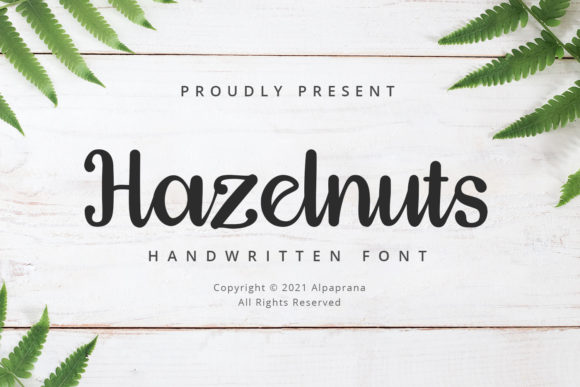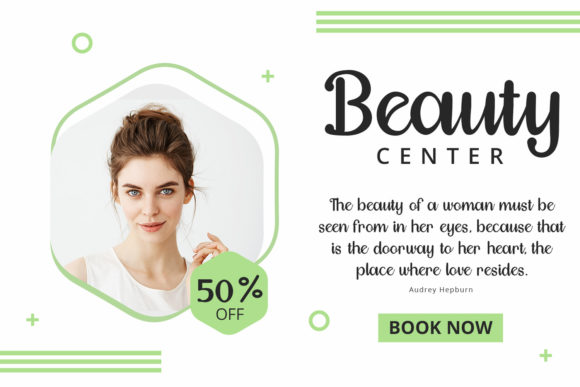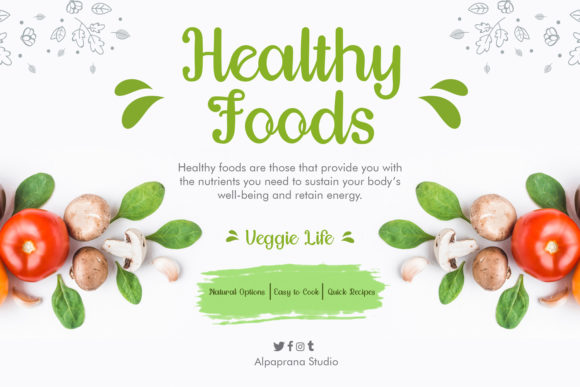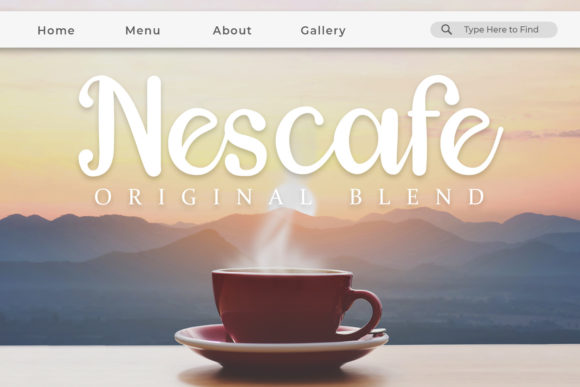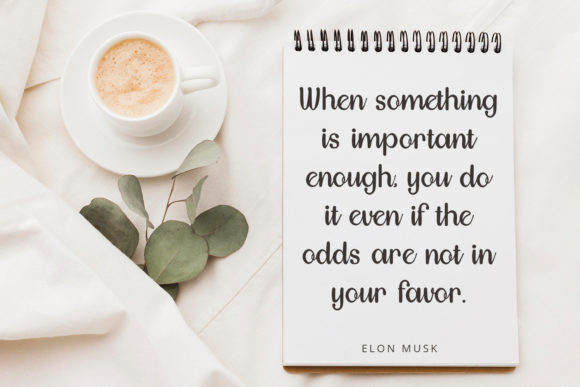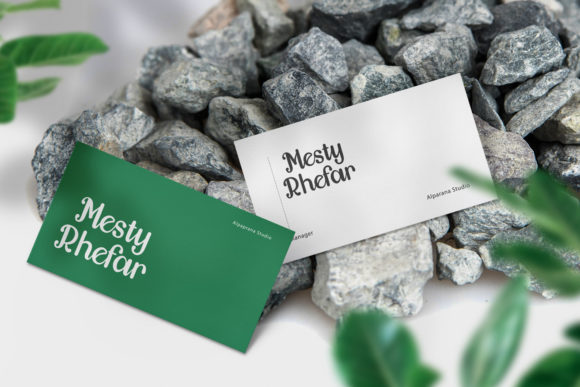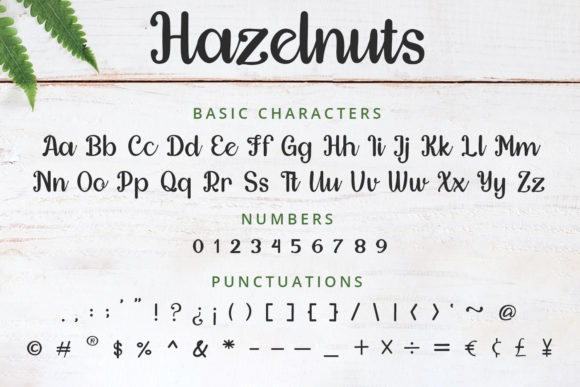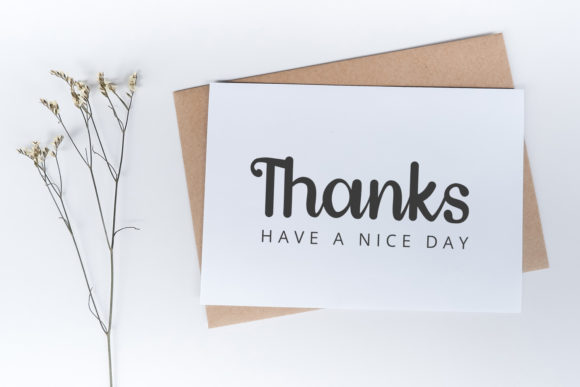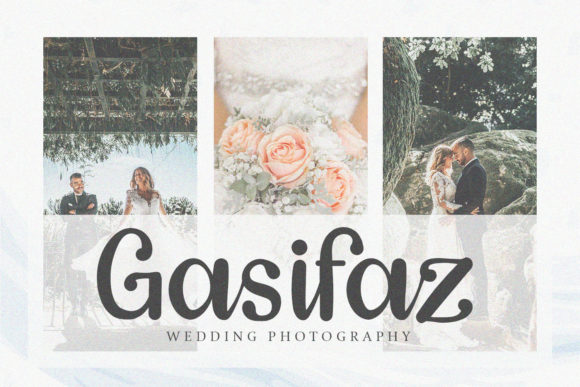
Hazelnuts Font
About Hazelnuts Font
Hazelnuts is a graceful and sophisticated handwritten font that exudes delicacy and elegance. Its flowing letterforms and balanced characters make it a versatile choice that can effortlessly complement a wide range of designs.
The font’s elegant and natural strokes lend a sense of beauty and refinement to your typography, making it well-suited for projects that seek to convey a sense of sophistication and style. Whether you’re designing wedding invitations, fashion branding, high-end stationery, or any content that requires a touch of elegance, Hazelnuts delivers a beautiful and polished look.
One of Hazelnuts’ standout features is its stylish alternates and ligatures. These additional character variations provide a level of uniqueness and creativity, allowing you to create custom and personalized typography for your projects. The stylish alternates and ligatures add visual interest and charm, making your designs truly stand out.
The font’s versatility is evident in its ability to adapt to different design themes and contexts. From classic and timeless designs to modern and contemporary aesthetics, Hazelnuts seamlessly fits into any project, making it a go-to font for designers looking to add a touch of sophistication to their work.
Hazelnuts’ delicate and flowing style also makes it a great choice for projects centered around beauty, health, wellness, and lifestyle. It can be used in magazine layouts, editorial design, product packaging, and promotional materials to create a sense of luxury and refinement.
Furthermore, Hazelnuts is easy to read and pleasant on the eyes, making it suitable for longer text passages, such as quotes, book covers, and blog posts. Its legibility ensures that your message is conveyed clearly and elegantly, while its beautiful aesthetics enhance the overall visual appeal of your content.
In conclusion, Hazelnuts is a delicate, elegant, and flowing handwritten font that effortlessly matches a wide variety of designs. Its stylish alternates and ligatures provide a touch of uniqueness and creativity, making it a perfect match for any project. Embrace the elegance of Hazelnuts and let it elevate the beauty and sophistication of your designs.